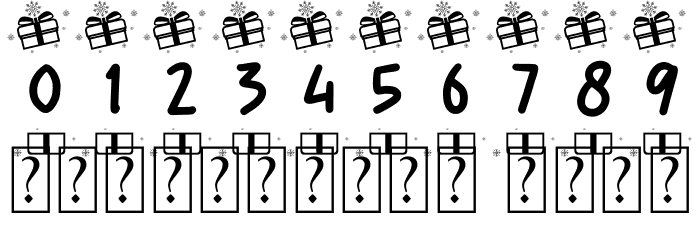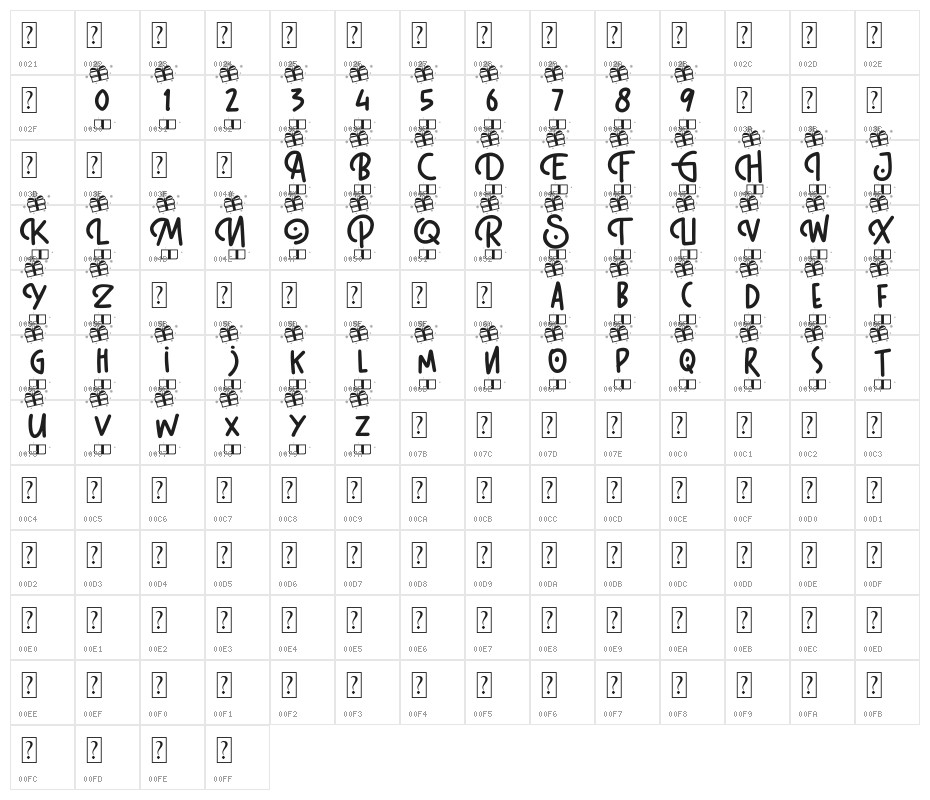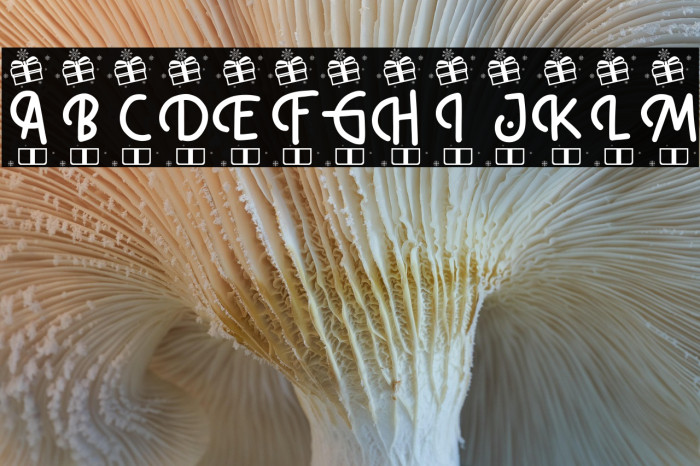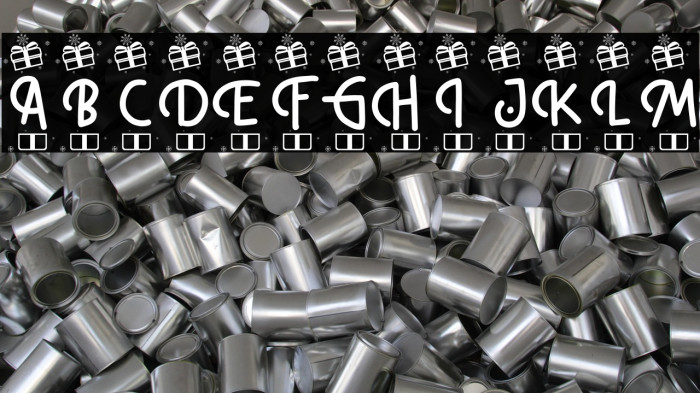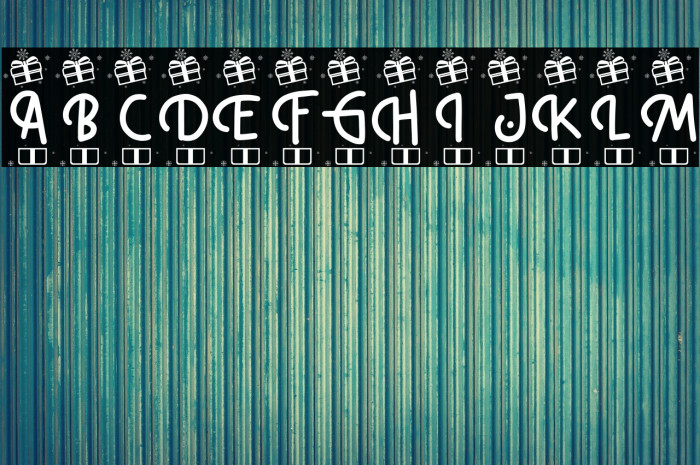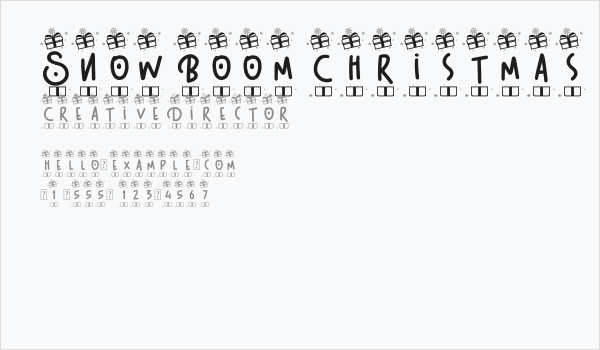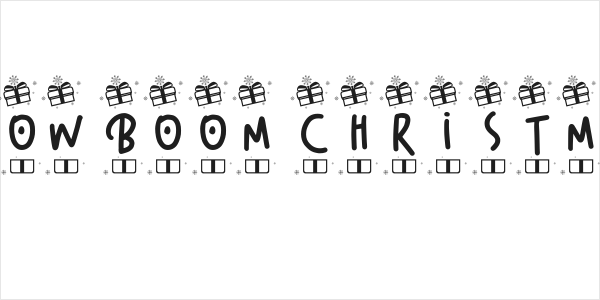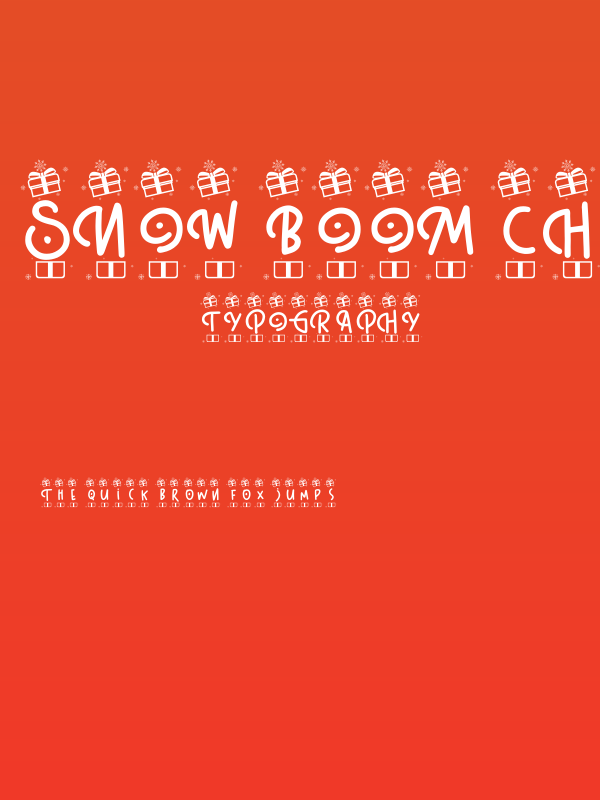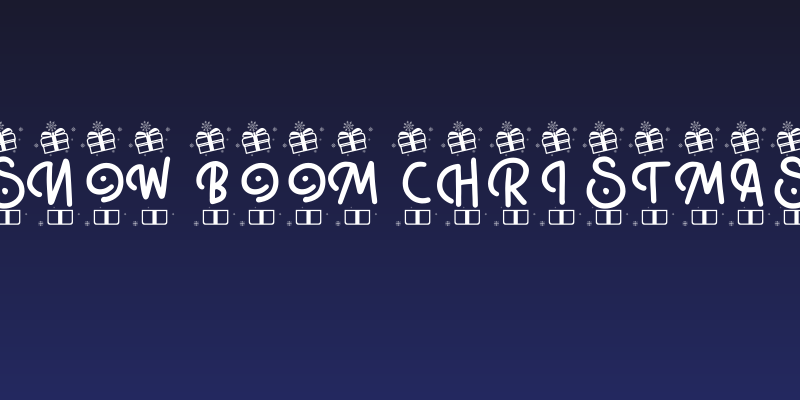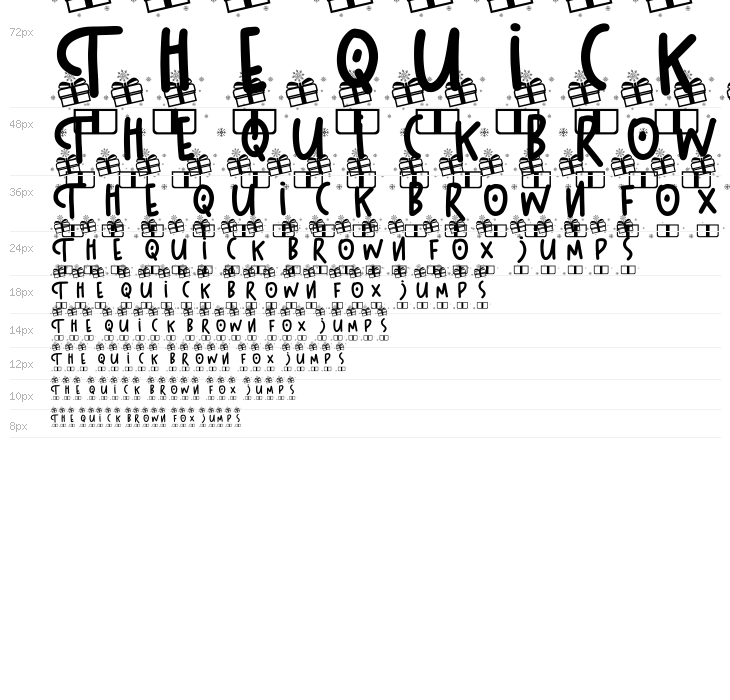
Snow Boom Christmas Font
Snow Boom Christmas Description
This playful and festive font features a whimsical design with each character adorned by a small gift box icon, adding a touch of holiday cheer. The letters are bold and rounded, with a slightly uneven baseline that enhances its casual and fun appearance. The uppercase and lowercase letters maintain a consistent style, while the numerals and special characters are equally decorative, making this font ideal for holiday-themed projects. The overall design is eye-catching and perfect for capturing the spirit of Christmas with its unique and joyful presentation.
| Overall Style | Festive, Playful |
| Proposed Projects | Ideal for Christmas cards, holiday banners, festive invitations, and seasonal marketing materials. |